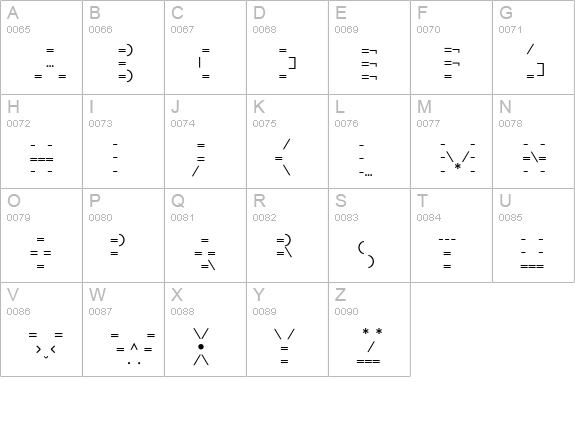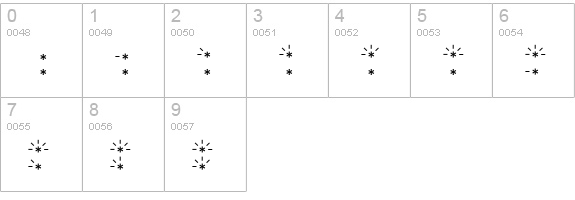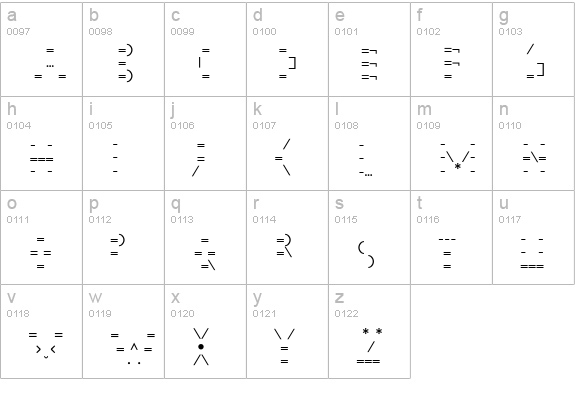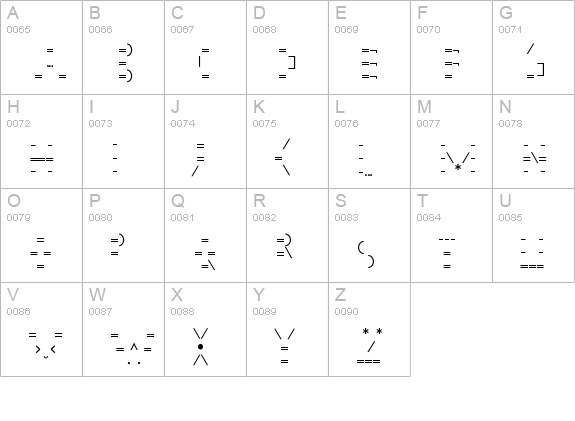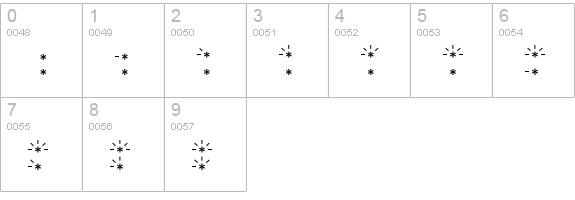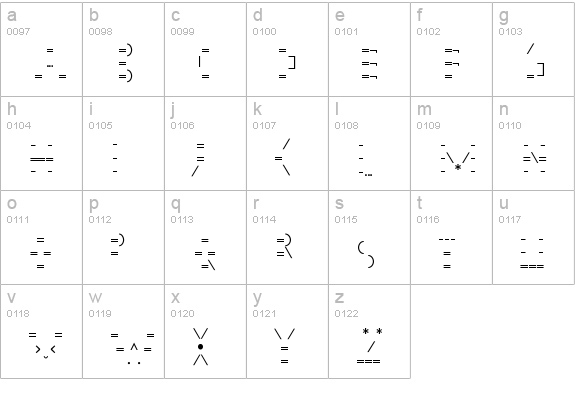
MMMteurs-Real Font Details
MMMteurs-Real font is a stunning and versatile typeface that exudes elegance and sophistication. Its sleek lines and sharp edges make it perfect for a wide range of design projects, from branding to editorial design. This font is not only visually appealing but also highly legible, making it a great choice for both print and digital applications. What sets MMMteurs-Real font apart is that it is available for free download at FontsMarket.com. This means that you can easily access this high-quality font without any cost, making it a valuable addition to your font library. Whether you are a professional designer or a hobbyist, MMMteurs-Real font offers endless creative possibilities for your projects. Download this exquisite font today and elevate your designs with its timeless appeal.